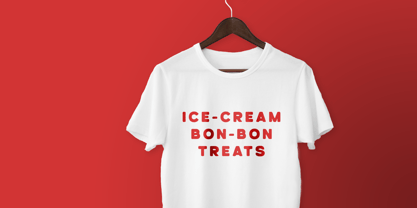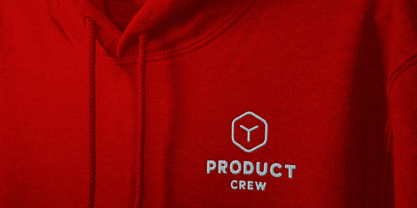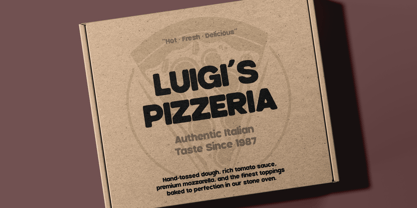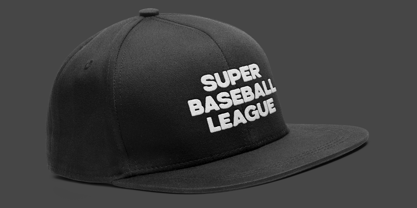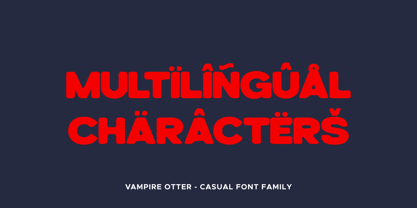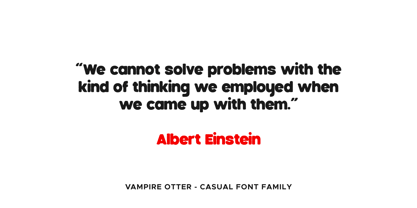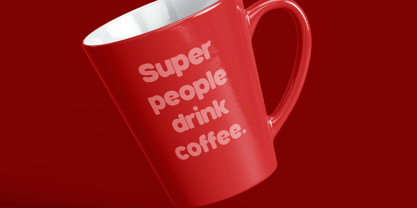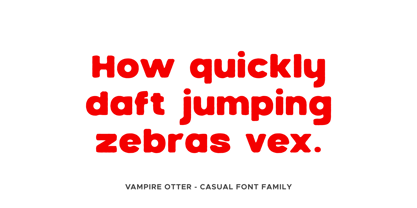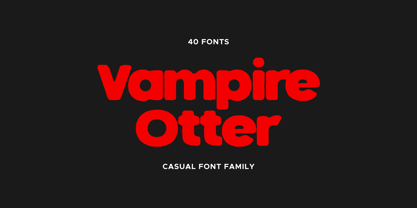
Vampire Otter
by OtterType
The Vampire Otter Font Family was designed by Mariia Çakıcı and published by OtterType. Vampire Otter contains 39 styles and family package options. More about this family
Vampire Otter is a distressed sans serif typeface family designed with a dramatic eroded aesthetic. Inspired by melted ink, worn metal, and scratched surfaces, this font captures the feeling of decay, texture, and movement while remaining highly readable. The design balances rough organic damage with clean structural letterforms, making it versatile for both expressive display typography and gritty branding. The texture of Vampire Otter simulates ink erosion, rust, scratches, and worn surfaces, creating an atmospheric style perfect for posters, album covers, packaging, branding, horror themes, gaming graphics, and experimental editorial layouts. Each letterform feels alive with irregular edges and distressed contours that give designs a raw, handcrafted character. This typeface family includes a wide range of stylistic variations to support different visual moods. The family features multiple texture styles such as Brush, Cut, Eroded, Grit, Ink, Rough, Rust, Scratch, and Worn. Each style is paired with matching Italic and Outline versions, allowing designers to layer, combine, and create bold typographic compositions. With a large multilingual character set supporting 89 languages, Vampire Otter is suitable for international projects while maintaining its distinctive eroded personality. The typeface performs beautifully in large display sizes where the distressed details can shine, but it also holds character in smaller applications. Vampire Otter is ideal for horror themes, grunge branding, music posters, streetwear graphics, gaming titles, movie artwork, packaging design, and bold visual identities that need texture and attitude. Whether you want subtle roughness or aggressive distressed typography, Vampire Otter gives designers a powerful toolkit to create expressive and atmospheric typography. Language Support: Afrikaans, Albanian, Asu, Basque, Bemba, Bena, Cebuano, Chiga, Cornish, Corsican, Danish, English, Estonian, Filipino, Finnish, French, Friulian, Galician, German, Gusii, Ido, Indonesian, Interlingua, Interlingue, Irish, Italian, Javanese, Jju, Kabuverdianu, Kalaallisut, Kalenjin, Kinyarwanda, Ligurian, Lojban, Lombard, Low German, Luo, Luxembourgish, Luyia, Machame, Makhuwa, Makhuwa-Meetto, Makonde, Malagasy, Malay, Manx, Morisyen, North Ndebele, Northern Sotho, Norwegian Bokmål, Norwegian Nynorsk, Nyankole, Occitan, Oromo, Portuguese, Rejang, Romansh, Rombo, Rundi, Rwa, Samburu, Sango, Sangu, Sardinian, Scottish Gaelic, Sena, Shambala, Shona, Soga, Somali, South Ndebele, Southern Sotho, Spanish, Sundanese, Swahili, Swati, Swedish, Swiss German, Taita, Taroko, Teso, Tsonga, Tswana, Vunjo, Walloon, Wolastoqey, Xhosa, Zhuang, Zulu -- Uppercase Thank you!
Designers: Mariia Çakıcı
Foundry: OtterType